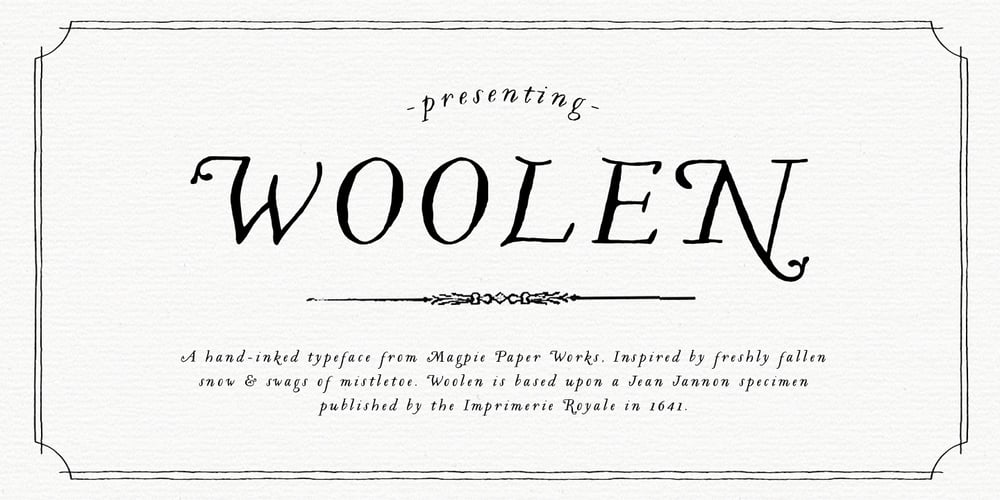
Woolen Font Family was designed by Jessica McCarty and published by Magpie Paper Works. Woolen contains 1 styles and family package options. Woolen is a hand-inked & italicized serif, based upon a 17th century type specimen by Jean Jannon. Many of the capital letters are decorated with subtle sprigs and leaves, while the lowercase letters remain classically styled, giving the font a warm and natural look with just the right amount of dignity. Woolen is perfect for logos and branding – she shines in retail identities, particularly for farms, markets, and restaurants. Even though the font is slanted, it reads beautifully as body text and display headlines. Multi-language support is included in the font.